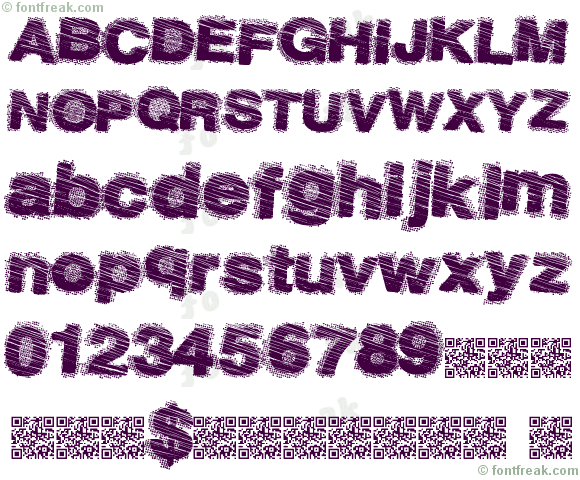
DustySalmon
About DustySalmon
DustySalmon by Xerographer Fonts is a captivating display font that exudes a unique personality, making it an excellent choice for a variety of creative projects. This font showcases a bold, slightly textured appearance, characterized by its irregular stroke weight and a distinctive, hand-crafted feel. Its playful yet assertive design captures attention, making it ideal for anything that requires a touch of creativity and warmth.
The visual characteristics of DustySalmon include a robust and dynamic presence, with visible brush strokes that add an organic quality to the letters. The spacing is well-balanced, allowing for easy readability while still maintaining an artistic flair. This font's decorative elements, such as the unique curves and varying line thickness, contribute to its charming aesthetic, making it a standout choice for designers seeking something fresh and engaging.
DustySalmon is particularly well-suited for use cases such as wedding invitations, where its romantic vibe can enhance the overall aesthetic. It can also shine in movie posters, giving a modern and artistic edge to film titles and taglines. Additionally, restaurant menus featuring this font can create a welcoming atmosphere, inviting patrons to explore the culinary offerings. For small business owners, using DustySalmon in branding materials can help convey a sense of creativity and individuality.
Targeted towards graphic designers, small business owners, and content creators, DustySalmon offers versatility in its application while maintaining a unique charm. This font stands out not only for its aesthetic appeal but also for its ability to evoke a sense of personality and warmth in any design. A DustySalmon font free download is an opportunity for creatives to incorporate this engaging typeface into their work, enhancing their projects with its distinctive flair.